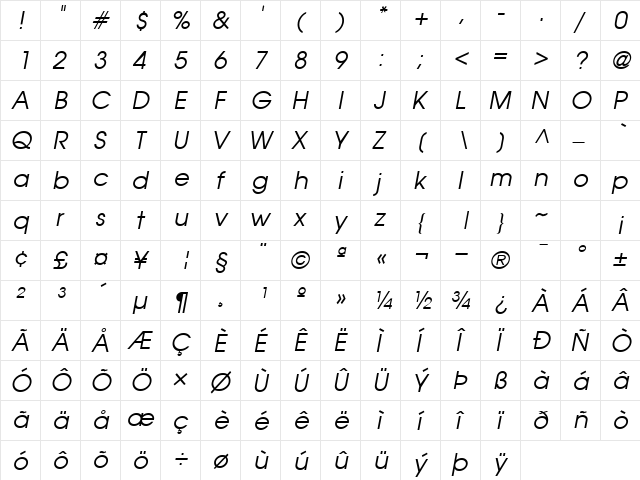
Forefront BookObliqueSH Font Preview
Forefront BookObliqueSH
Forefront BookObliqueSH Font Details
Design Context for Forefront Typeface
Forefront offers clean, dependable letterforms without strong stylistic allegiance, making it a practical choice for designers who need flexibility. Its italic angle brings a sense of urgency and motion to the letterforms.
Pro Tip: Use Forefront for emphasis, pull quotes, and subheadings where its slanted energy can add rhythm to the layout.